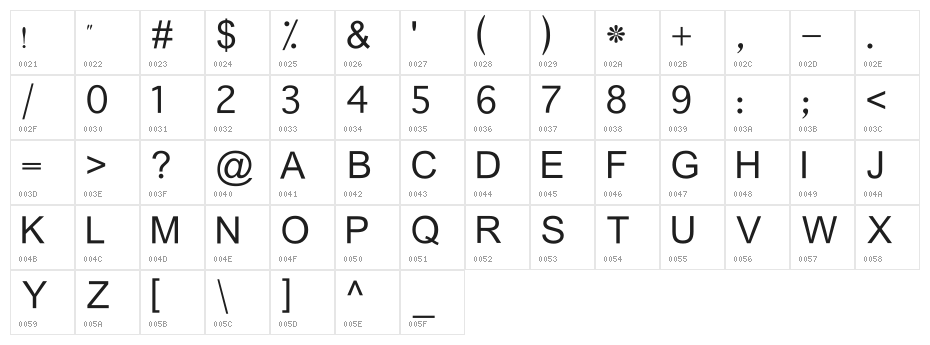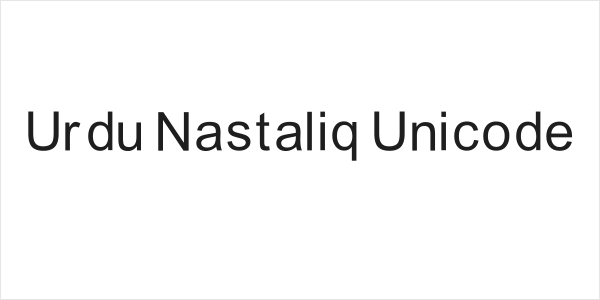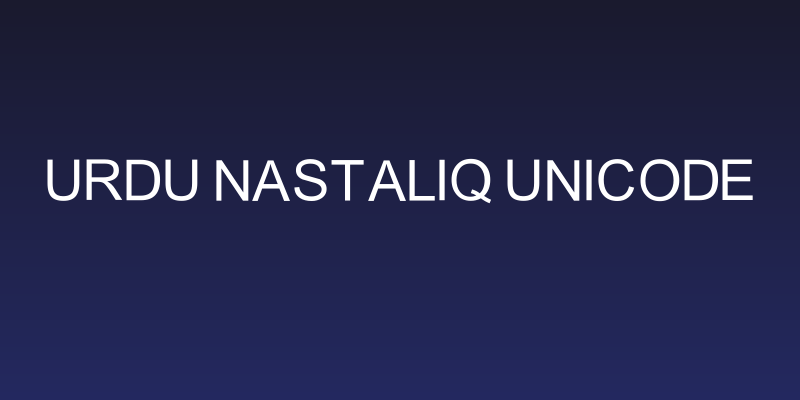
Urdu Nastaliq Unicode Font
Urdu Nastaliq Unicode Description
This font features a clean and modern sans-serif design with uniform stroke widths, providing a sleek and professional appearance. The characters are well-balanced, with a consistent height and width that ensures readability across various sizes. The uppercase letters are bold and assertive, while the lowercase letters maintain a friendly and approachable feel. The numerals are clear and distinct, making them suitable for both display and body text. Special characters are well-integrated, maintaining the overall aesthetic of the font. This font is versatile, suitable for a wide range of applications from digital to print media.
| Proposed Projects | Ideal for corporate branding, web design, advertising, and editorial layouts. |